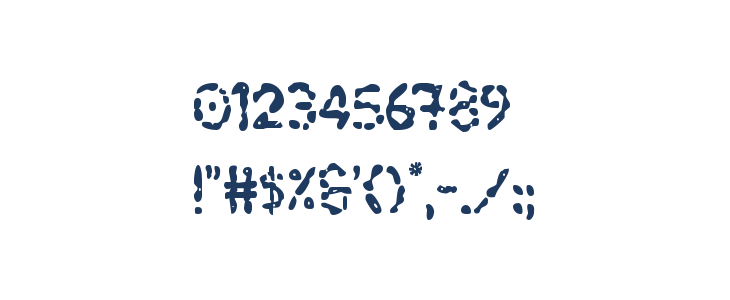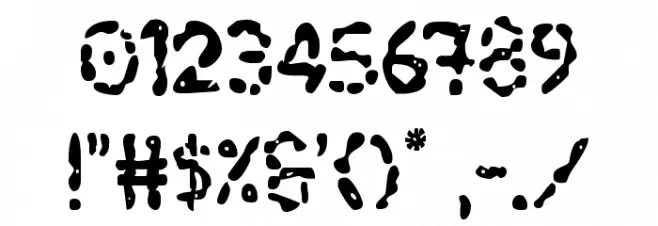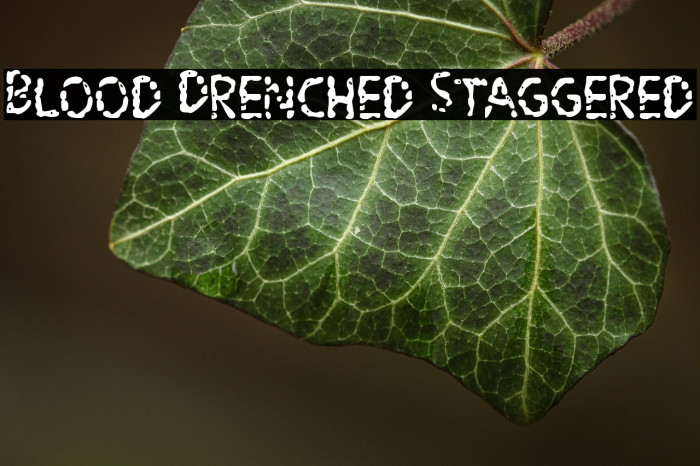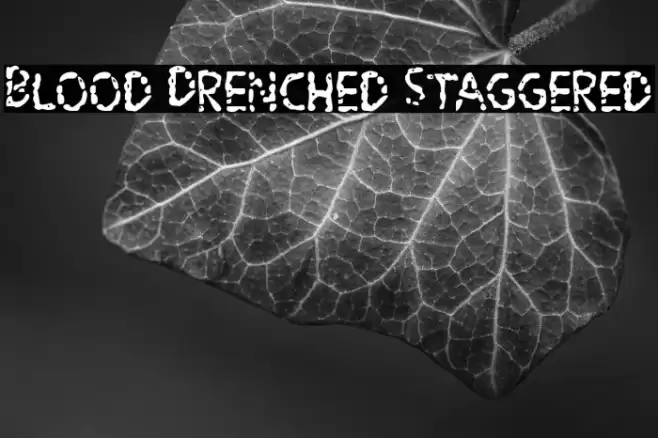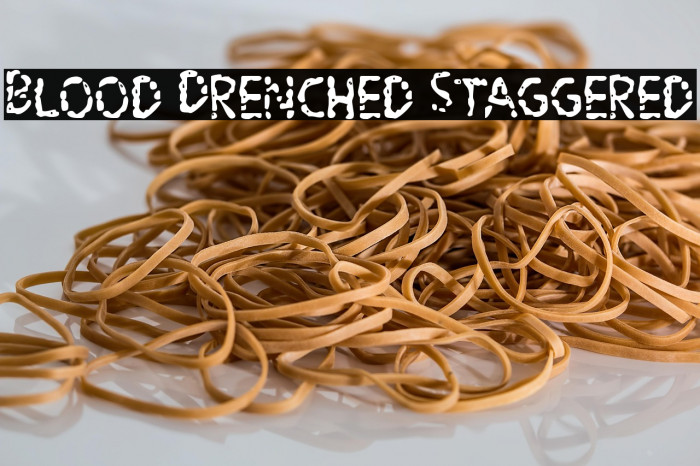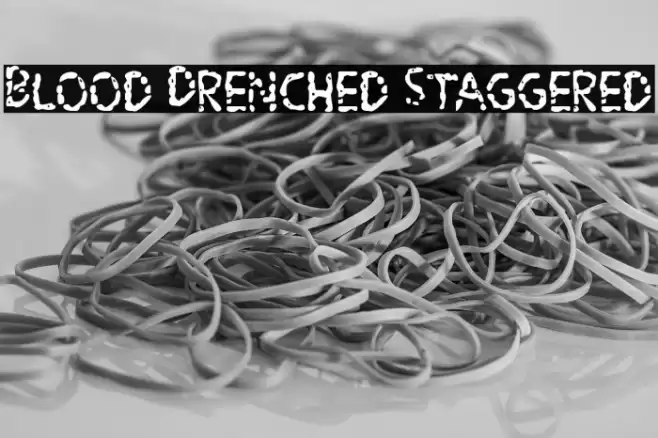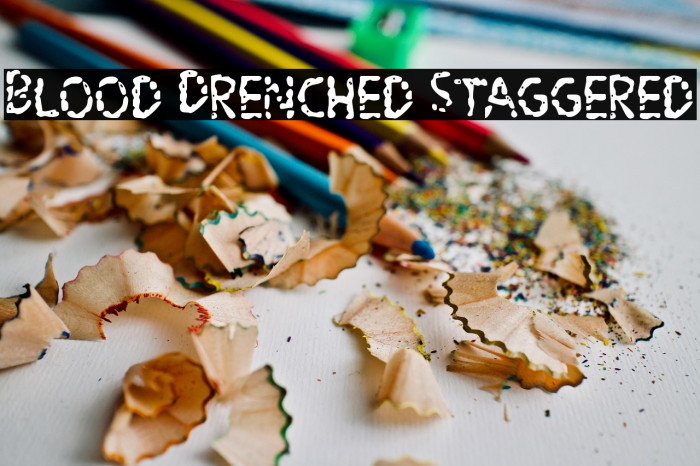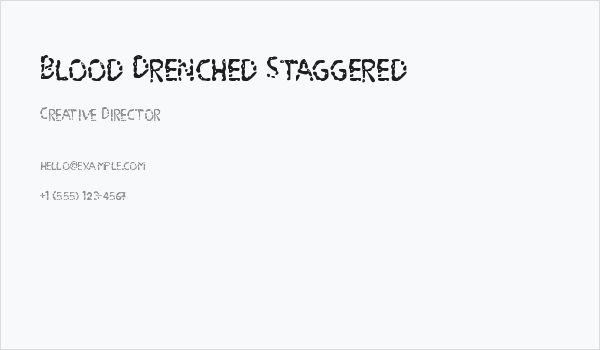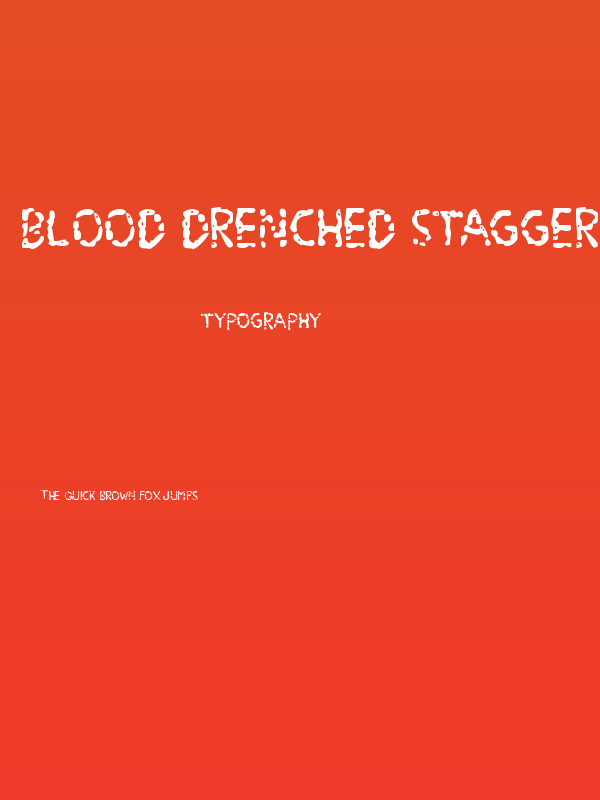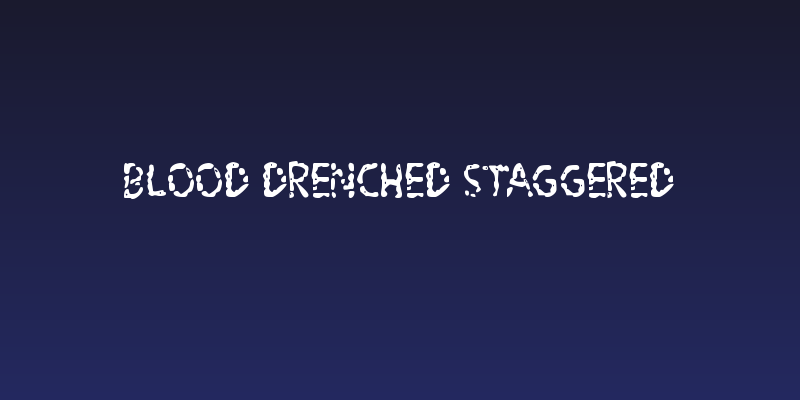
Blood Drenched Staggered Font
Blood Drenched Staggered Description
This font features a unique and eerie design, characterized by its irregular, blotchy appearance that mimics the look of dripping or splattered liquid. The letters are bold and uneven, with a staggered, chaotic arrangement that adds to its unsettling aesthetic. Each character appears as if it has been formed from a series of droplets, creating a sense of movement and fluidity. The font is highly decorative, making it ideal for projects that require a dramatic and eye-catching typeface. Its distinct style is perfect for horror-themed designs, Halloween events, or any creative work that seeks to evoke a sense of mystery and suspense.
Proposed ProjectsIdeal for horror movie posters, Halloween invitations, spooky event flyers, and themed merchandise.